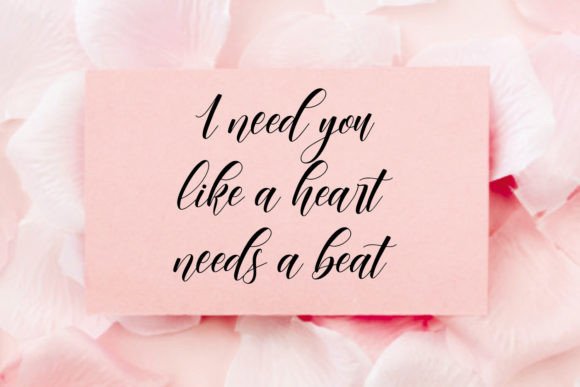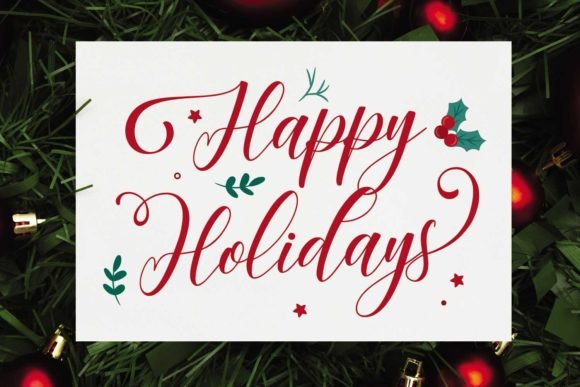
Beloved Christmas Font
Beloved Christmas is a stylish and incredibly elegant script font. It looks stunning on wedding invitations, thank you cards, quotes, greeting cards, logos, business cards and every other design which needs a handwritten touch.